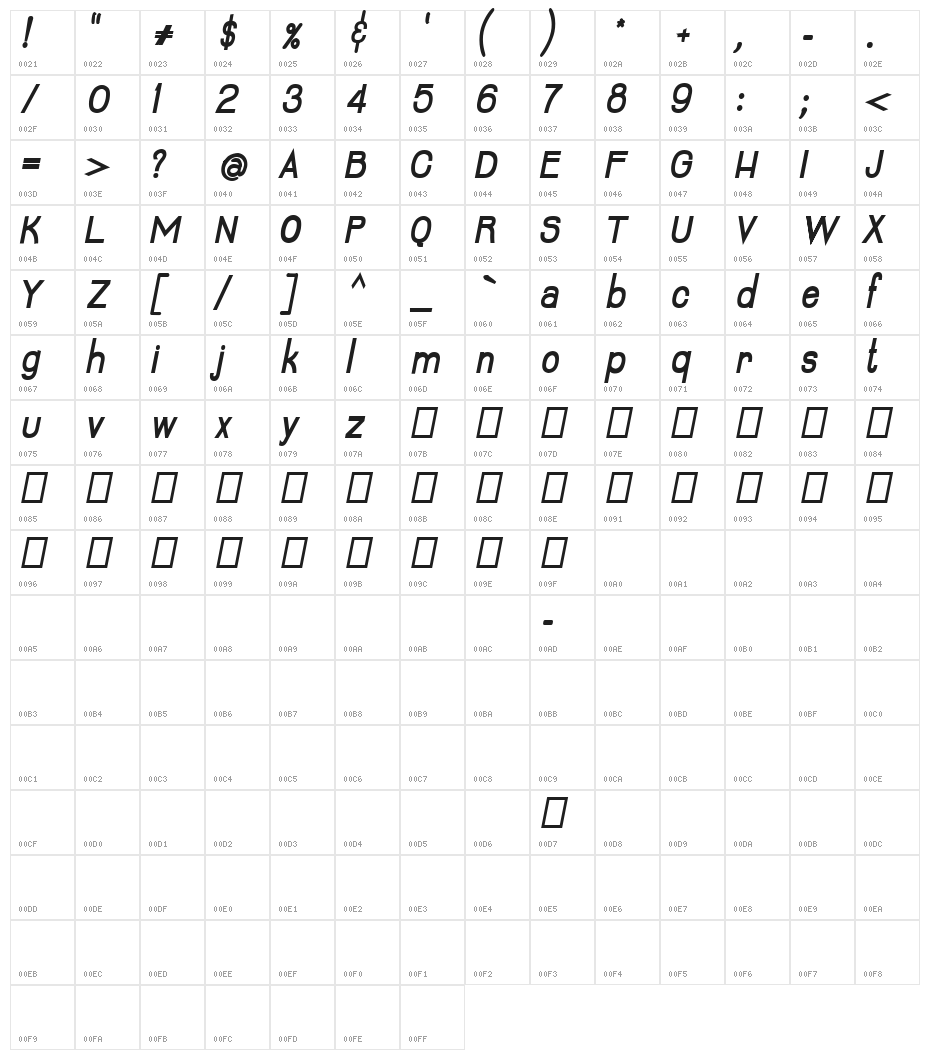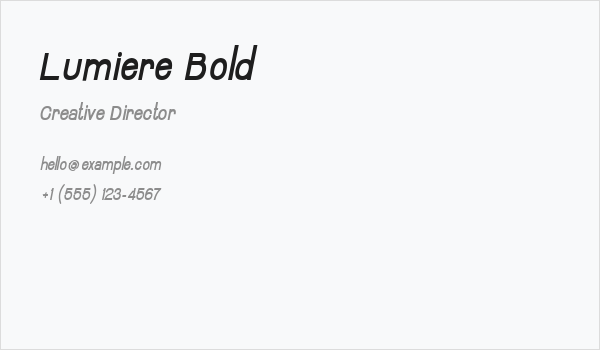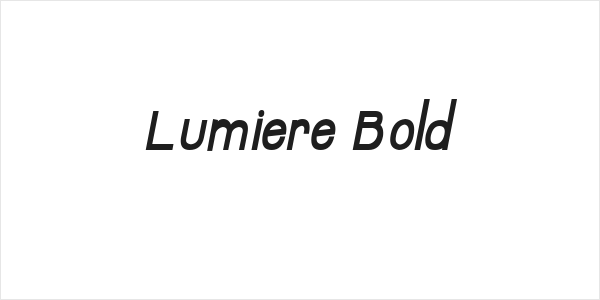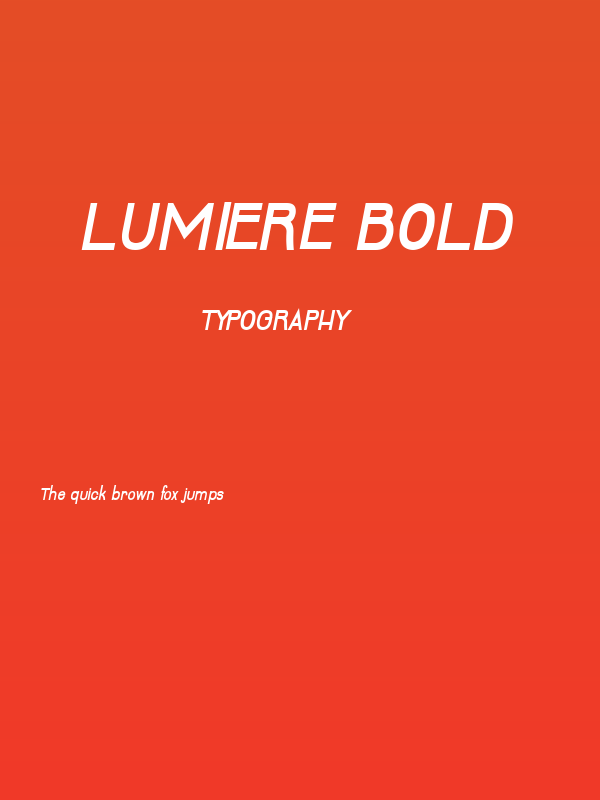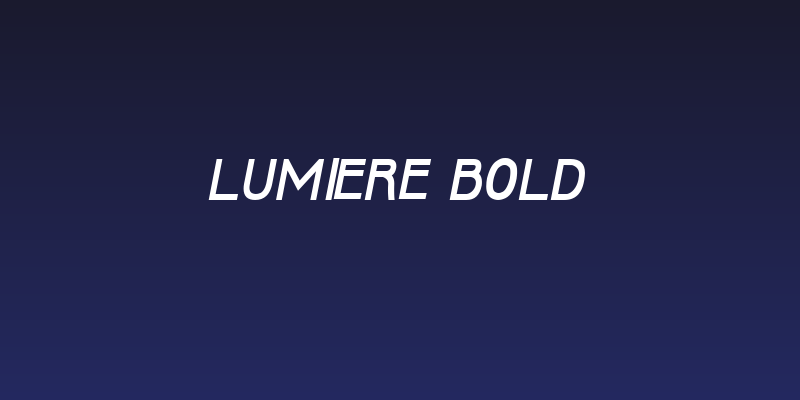
Lumiere Bold Font
Lumiere Bold Description
This font exhibits a bold and dynamic style with a strong presence. The characters are slanted, giving it an italicized appearance, which adds a sense of motion and energy. The strokes are thick and consistent, providing a high level of contrast that enhances readability. The design is modern and sleek, suitable for making a statement. The uppercase and lowercase letters maintain a uniform width, while the numerals are clear and distinct. Special characters are well-defined, complementing the overall aesthetic.
| Proposed Projects | Ideal for branding, advertising, and headlines where a strong, modern impression is needed. |